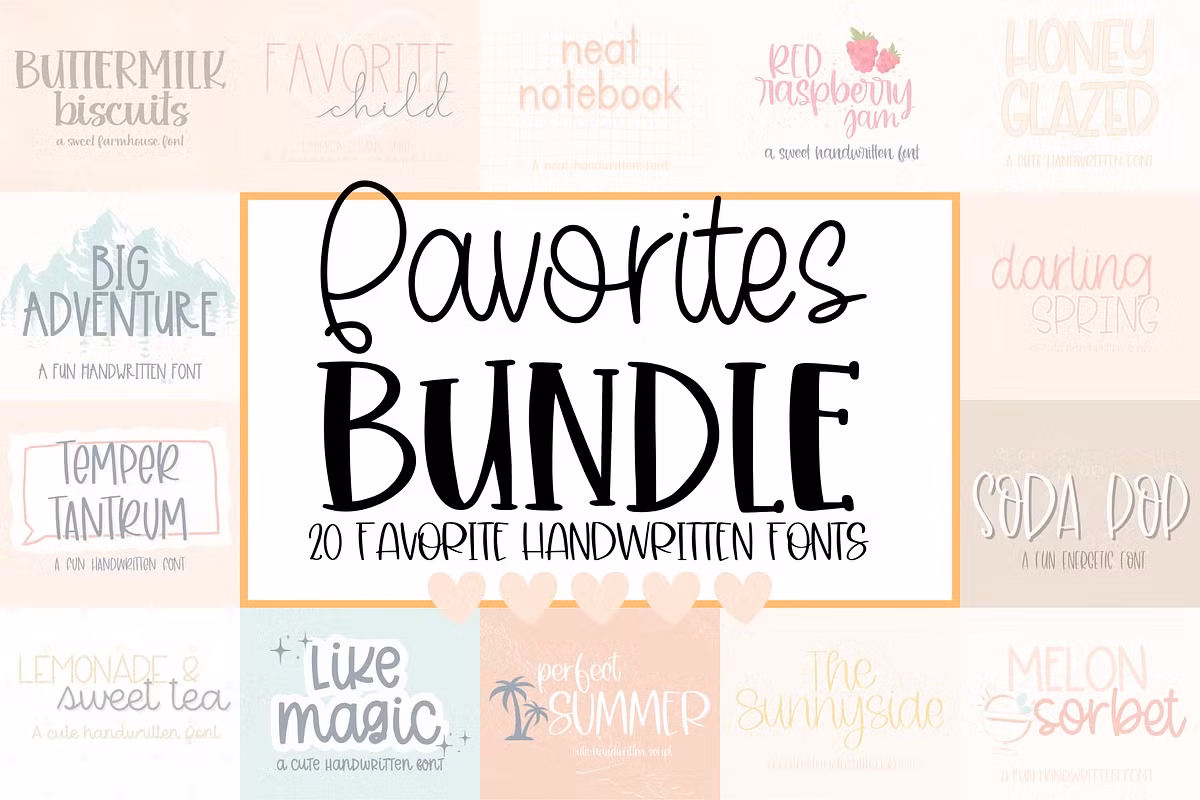
Favorites Font Bundle – Cute Fonts Free Download is a delightful collection of playful, whimsical fonts designed to add charm and personality to your creative projects. Perfect for children's designs, greeting cards, social media posts, DIY crafts, and more, this bundle includes a variety of cute, hand-drawn typefaces that capture the essence of fun and creativity.
With a range of styles, from bouncy scripts to quirky sans-serifs, the Favorites Font Bundle offers versatility and joy in every letter. Whether you're creating personalized gifts, playful branding, or simply adding a fun touch to your designs, this bundle brings a lighthearted vibe to your typography.